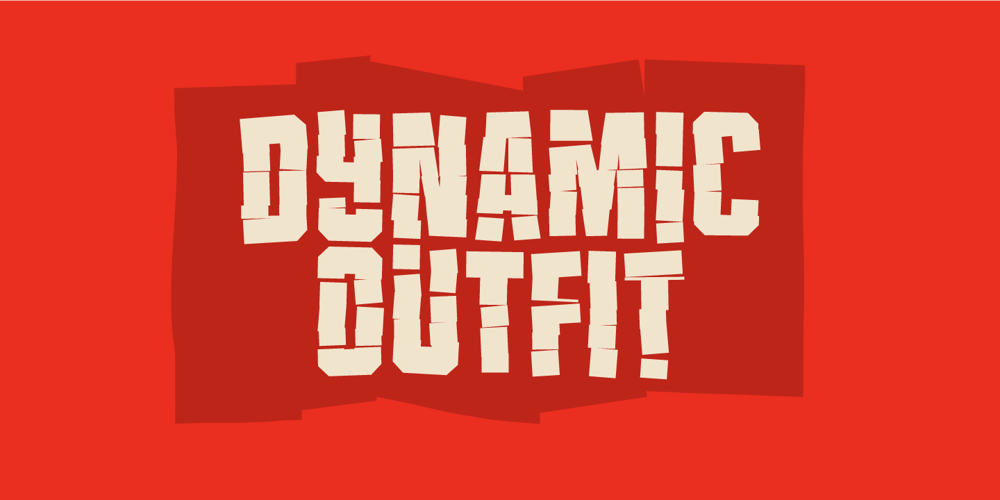
Dynamic Outfit
Dynamic Outfit font
Dynamic Outfit Font Family was designed by Jakob Fischer and published by PizzaDude.dk. Dynamic Outfit contains 2 styles and family package options. Dynamic Outfit is actually another one of my fonts (Universitet) cut and slightly rotated into a grunge font. To make the font more realistic and grungy, I have added 8 different versions of each letter – and these different versions automatically cycle as you type!